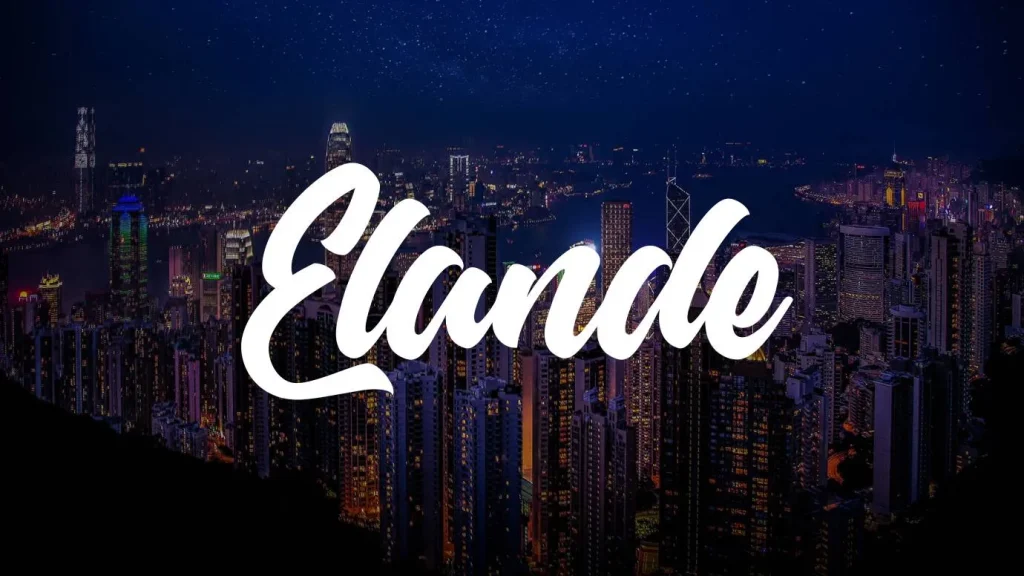
Elande Font is often used to create stunning and readable designs. It can be used anywhere where you want to create a new design.
As well as it has a readable texture and a unique appearance, this typeface is attractive. And is perfect for logos, branding projects, homeware packaging, and all sorts of other lovely ventures that require a beautiful look.